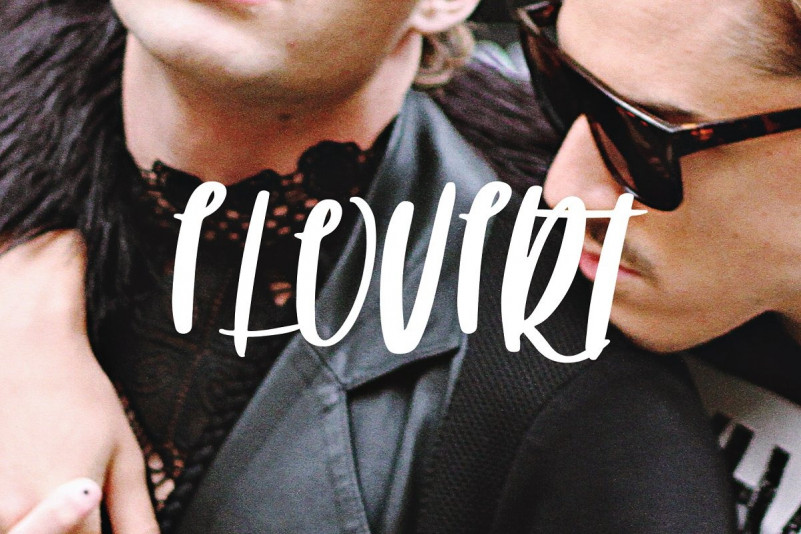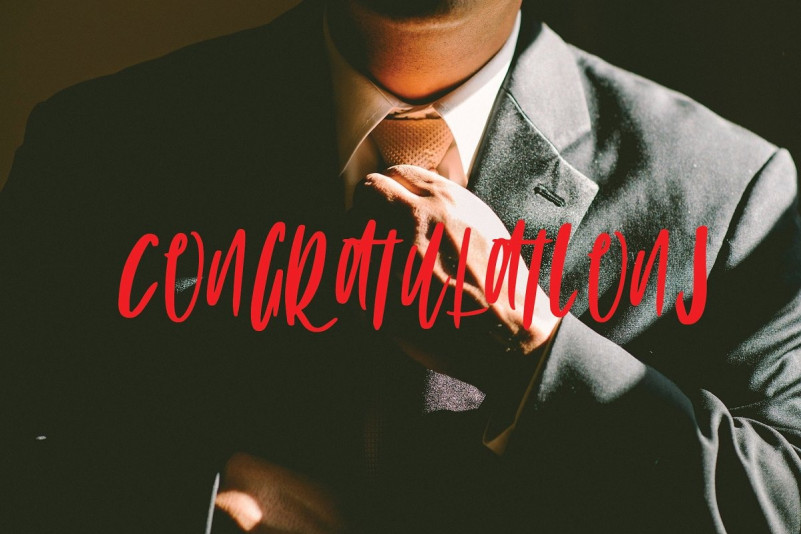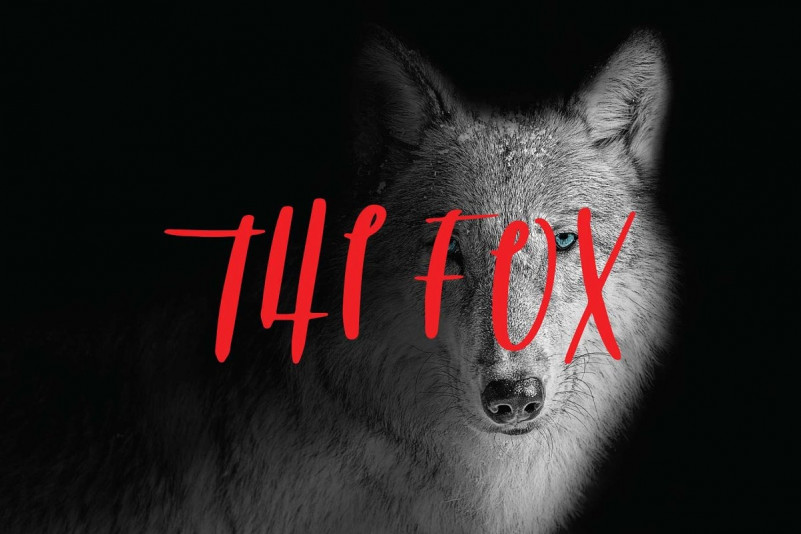
Sarttink Signature Font
Sarttink Signature is a cool signature font. It features a flowing and modern feel. Whether you’re looking for fonts for Instagram or calligraphy scripts for DIY projects, Sarttink Signature will turn any creative idea into a true piece of art!